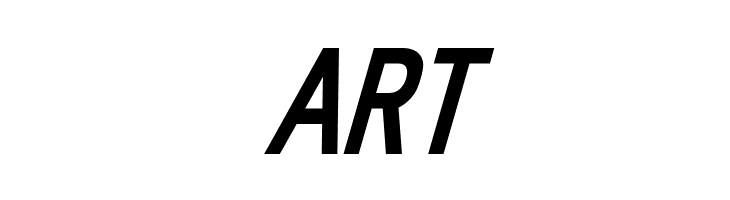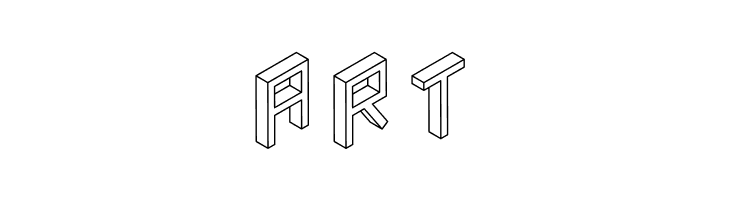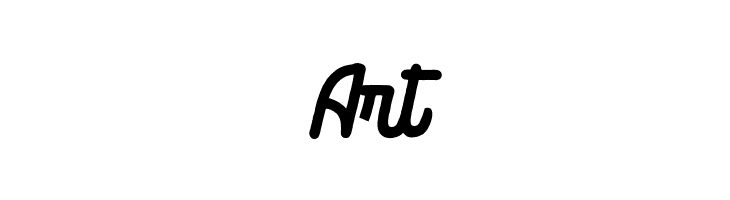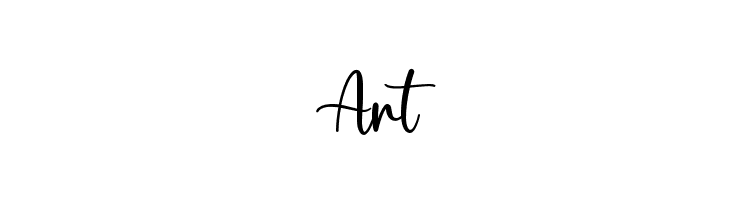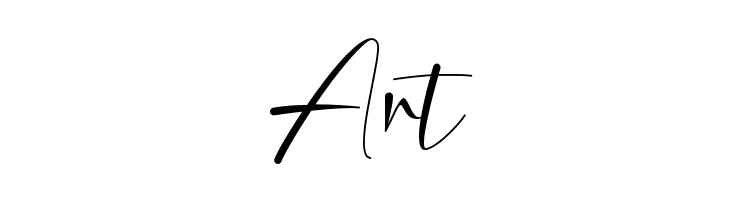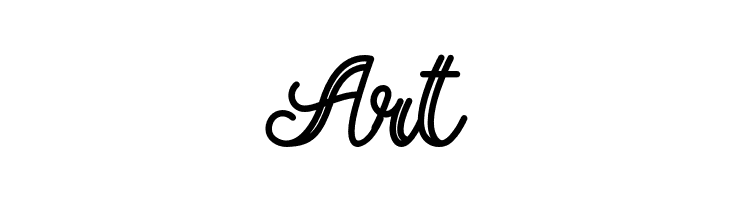
A sleek, italicized font with a modern and dynamic style.
A modern, geometric outline font with bold, rounded characters.
A 3D isometric font with a geometric and modern design.
A bold, flowing script font with a dynamic, handwritten style.
A modern serif font with high contrast and sharp, angular serifs.
A playful and elegant script font with flowing, connected letters.
An elegant, flowing script font with interconnected characters and graceful curves.
A dynamic script font with elegant, flowing strokes and modern flair.
A bold serif font with high contrast and sharp serifs, blending classic and modern styles.
A double-line script font with elegant, flowing connections and smooth curves.